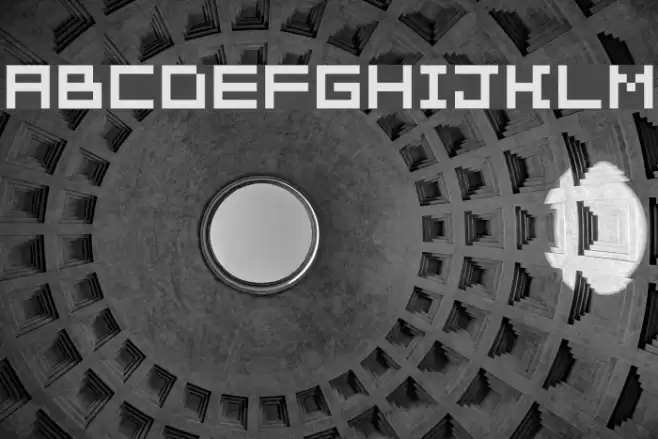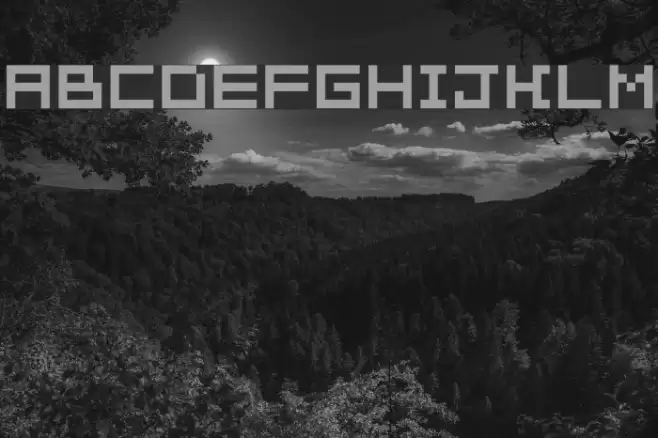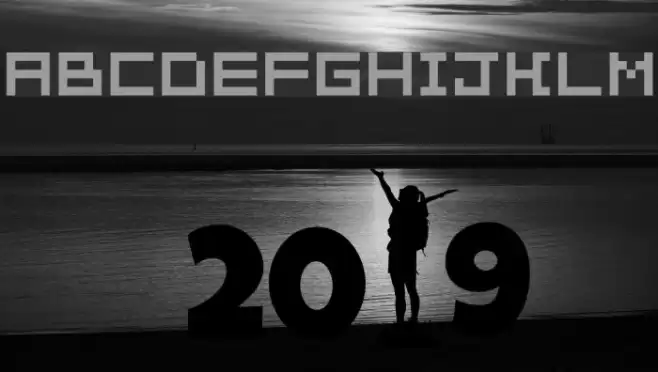
Pixelation Font
Pixelation Description
This font features a distinct pixelated style, reminiscent of early digital and video game typography. Each character is constructed with a grid-like precision, giving it a blocky and retro appearance. The uniformity in the design creates a cohesive look across all characters, making it ideal for projects that aim to evoke nostalgia or a digital aesthetic. The characters are evenly spaced, maintaining a consistent rhythm that enhances readability despite the unconventional form. This font is particularly effective in settings where a vintage or tech-inspired theme is desired.
A pixelated, retro-style font ideal for digital and nostalgic themes from Pixel fonts.
- Proposed Projects: Video game design, digital art projects, retro-themed posters, and tech-inspired branding.
- Overall Style: Vintage